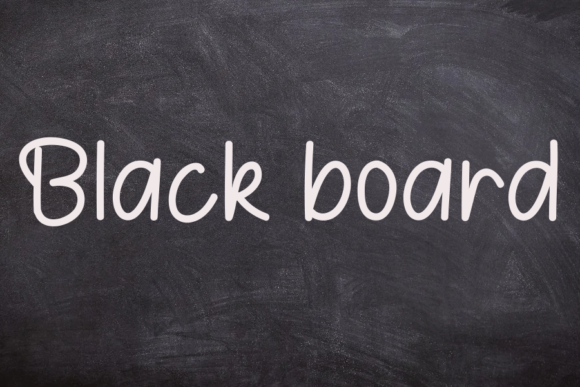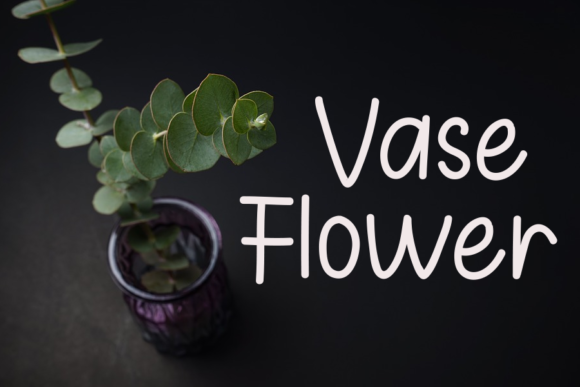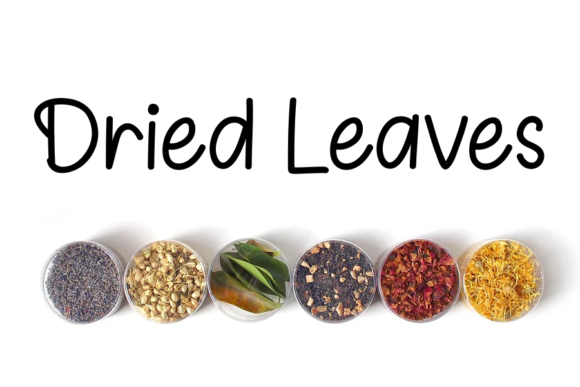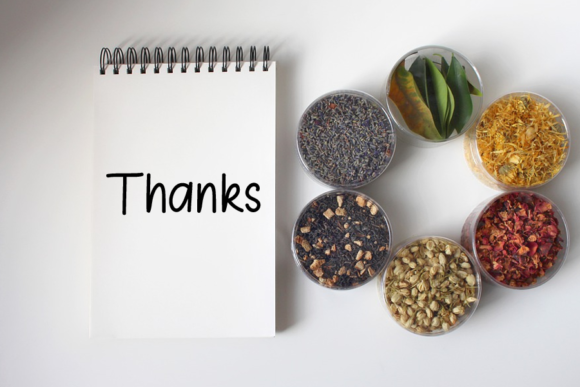
Flower Minimalist Font
Flower minimalist is a clean and elegant handwritten font. It is perfect for projects that need a nice handwritten touch and a very easily readable style!